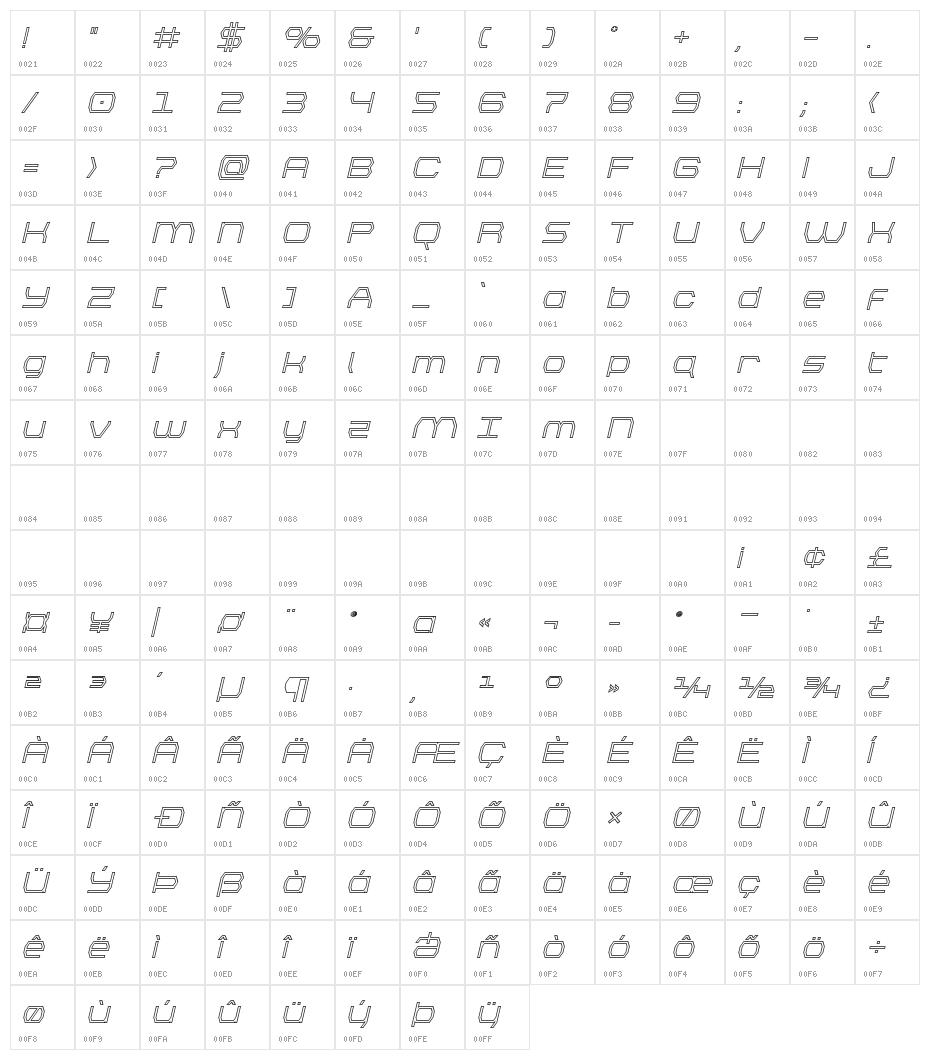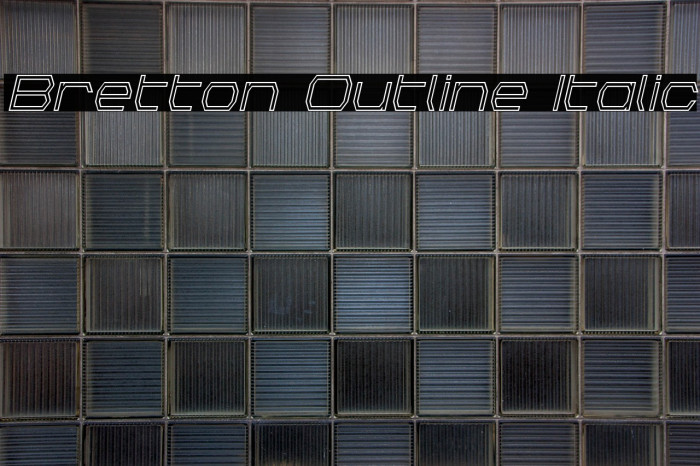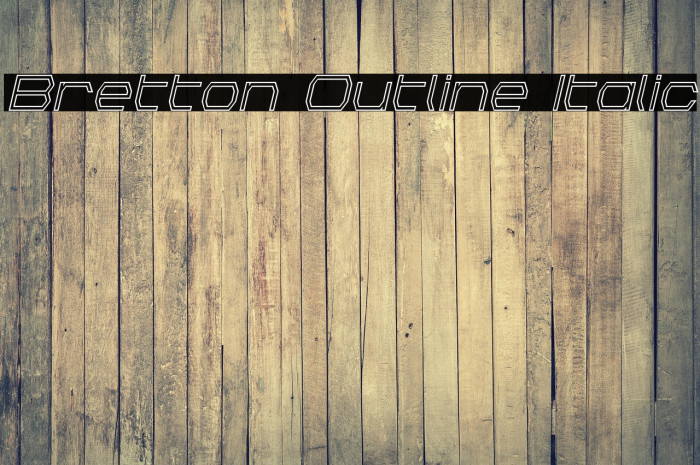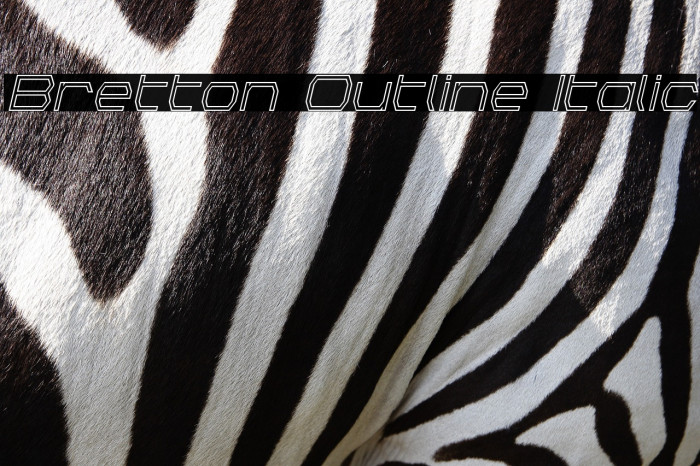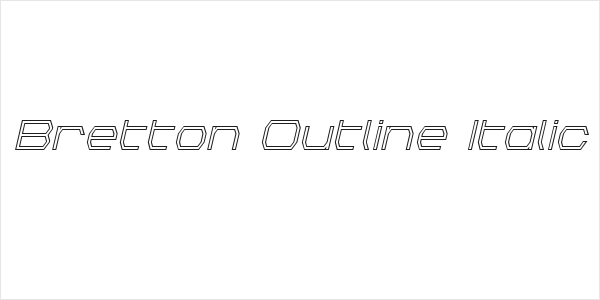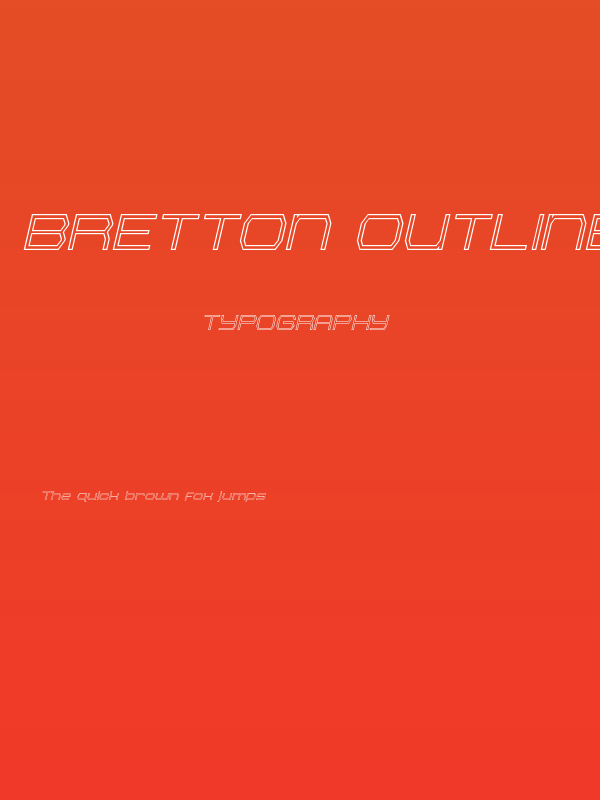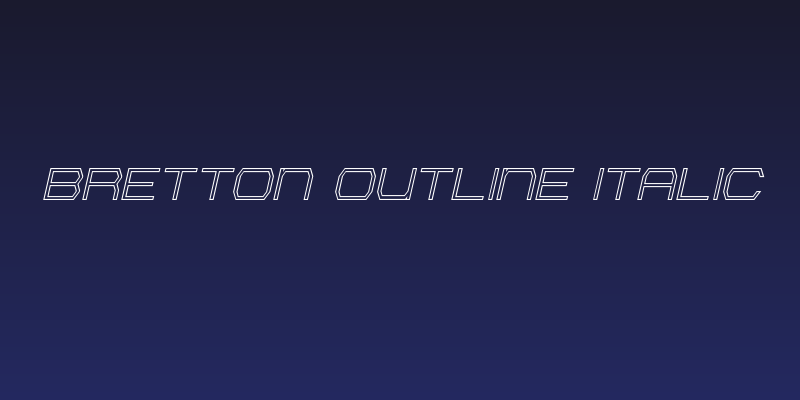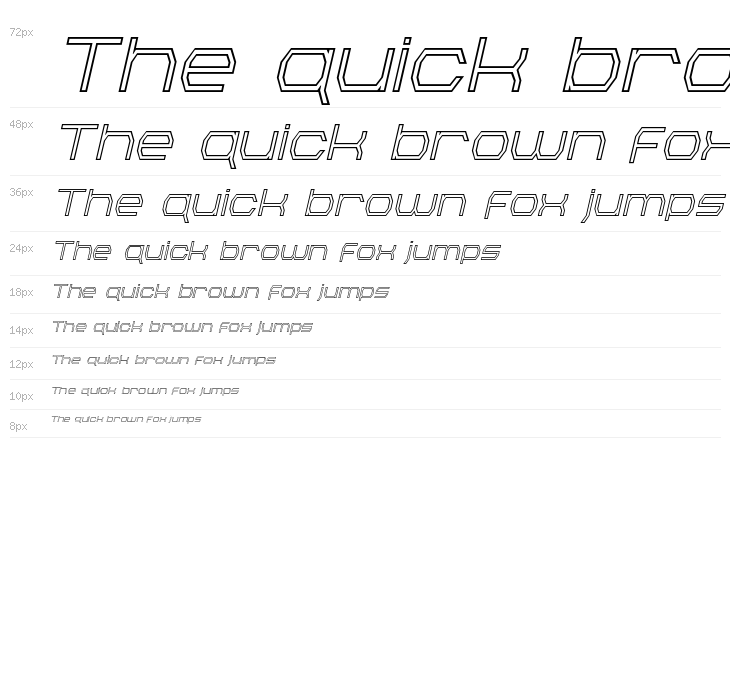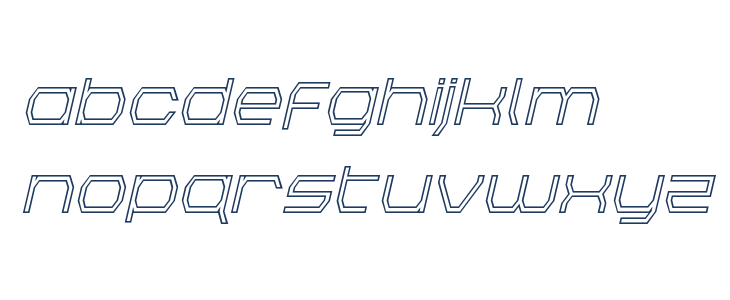
Bretton Outline Italic Font
Bretton Outline Italic Description
This font features an outline style with a modern, geometric design. Each character is crafted with precision, showcasing clean lines and a consistent italic slant. The uppercase and lowercase letters maintain a uniform structure, while the numerals and special characters complement the overall aesthetic. The font's outline nature gives it a unique, airy appearance, making it stand out in various design contexts. Its italicized form adds a dynamic and forward-moving feel, suitable for creative and contemporary projects.